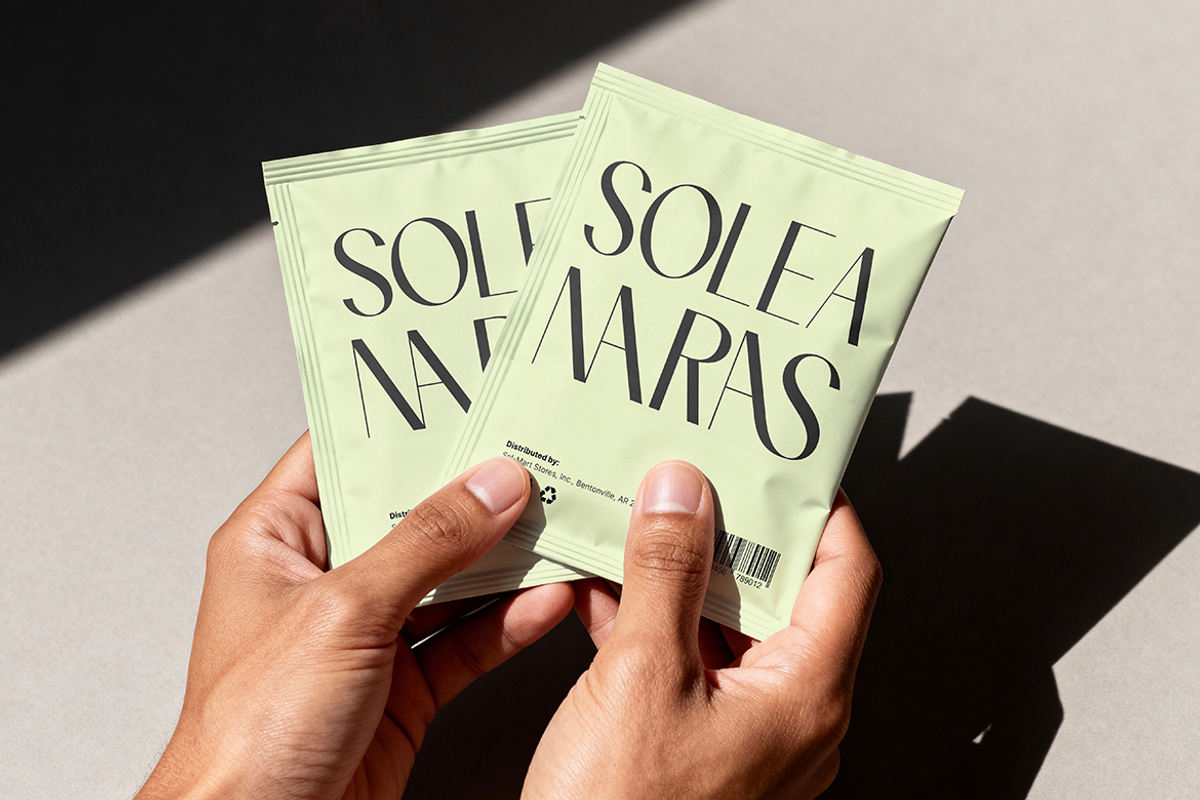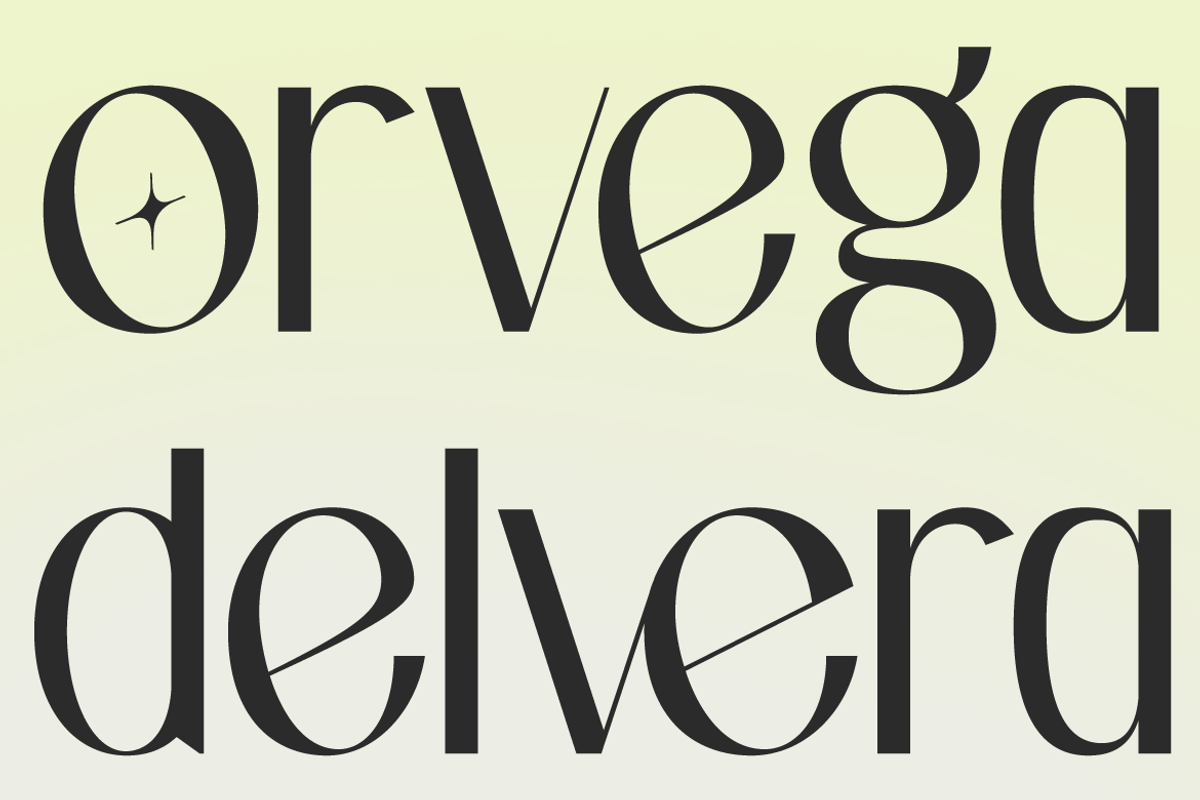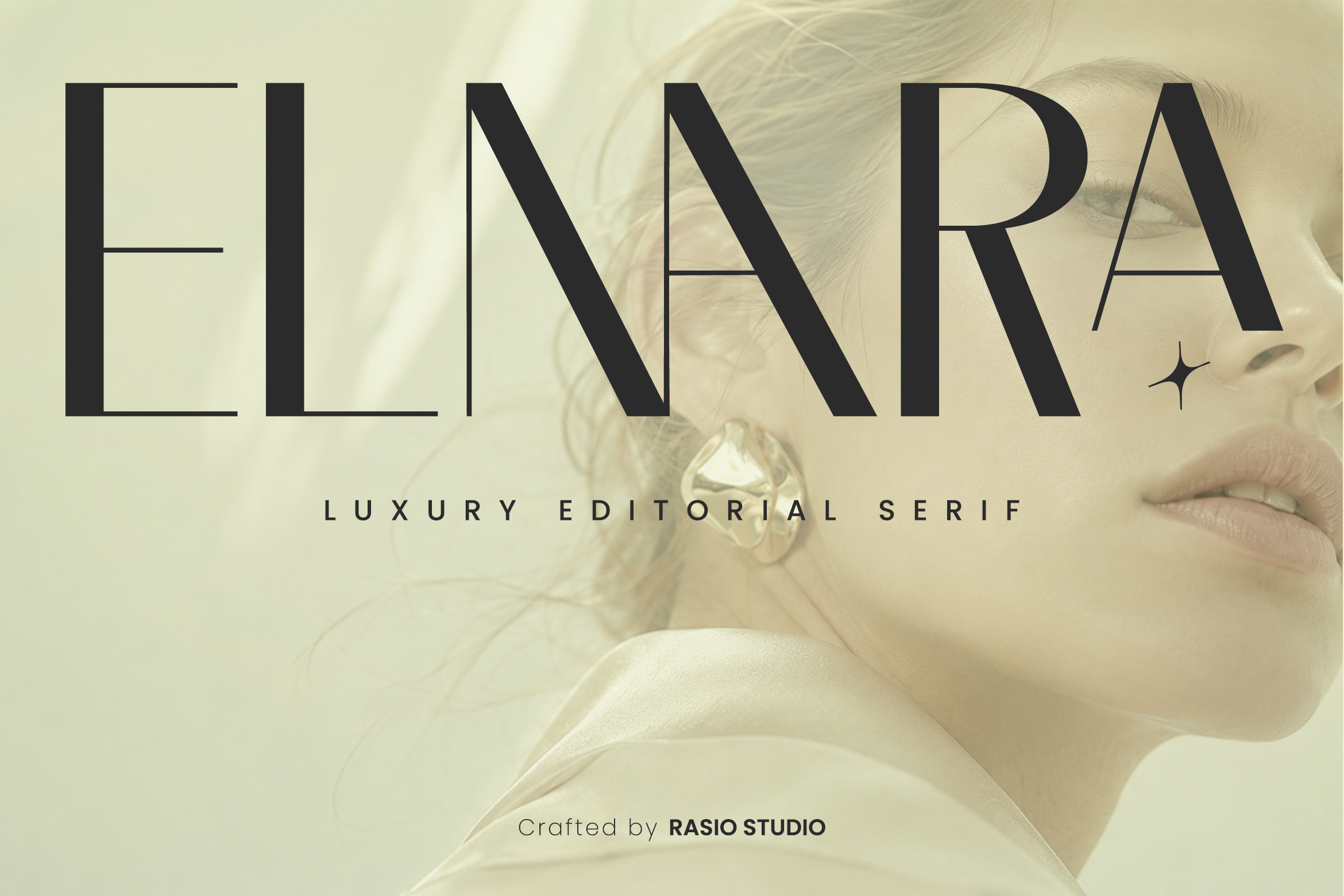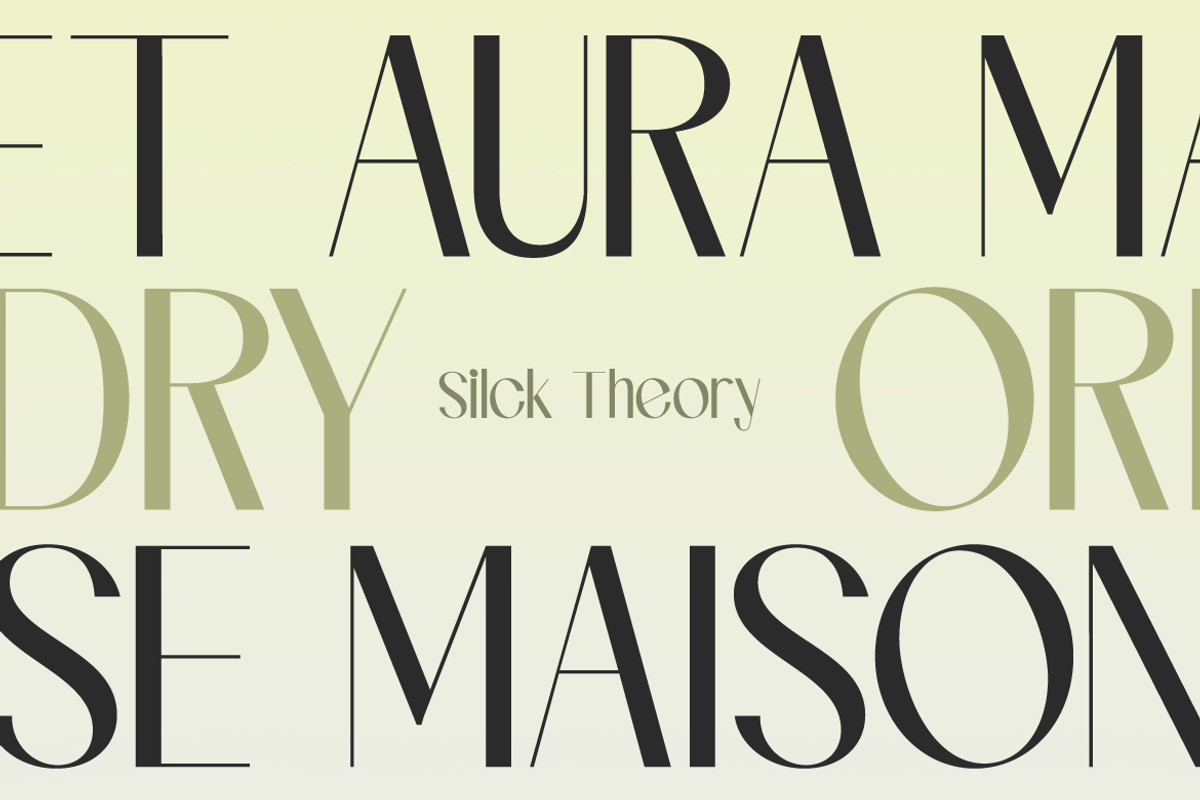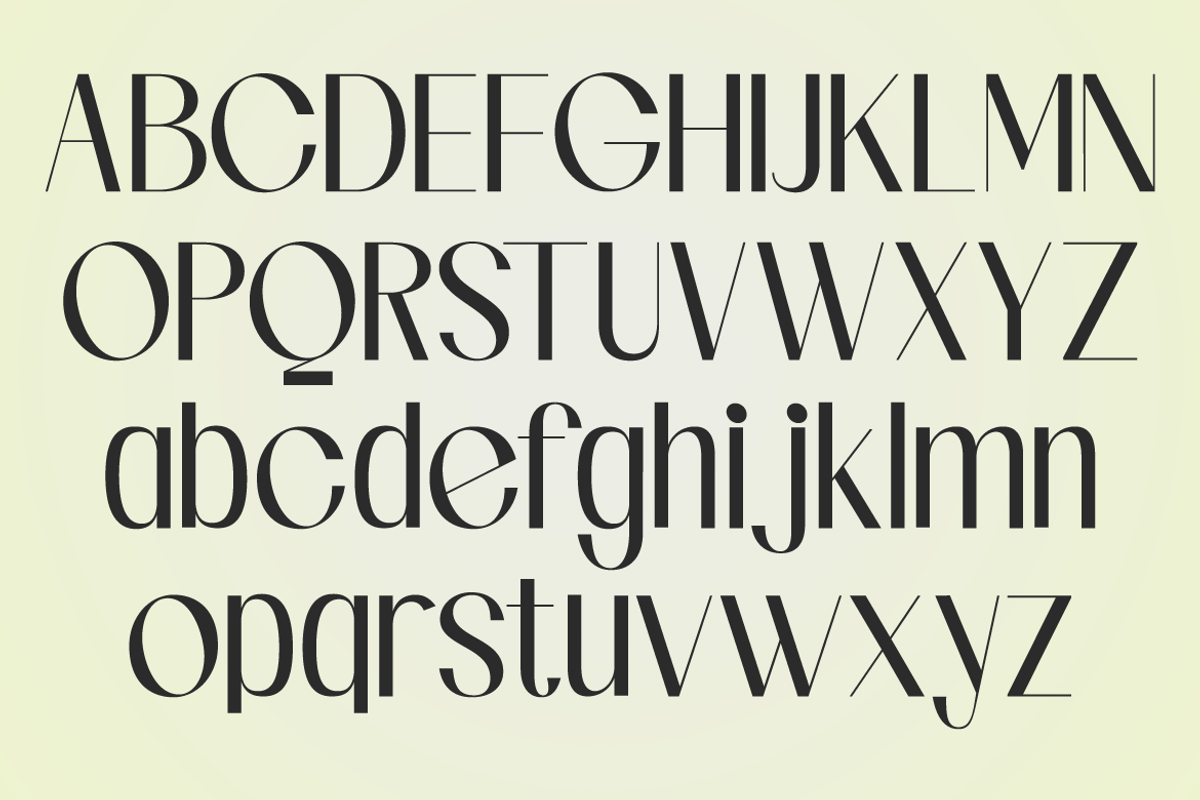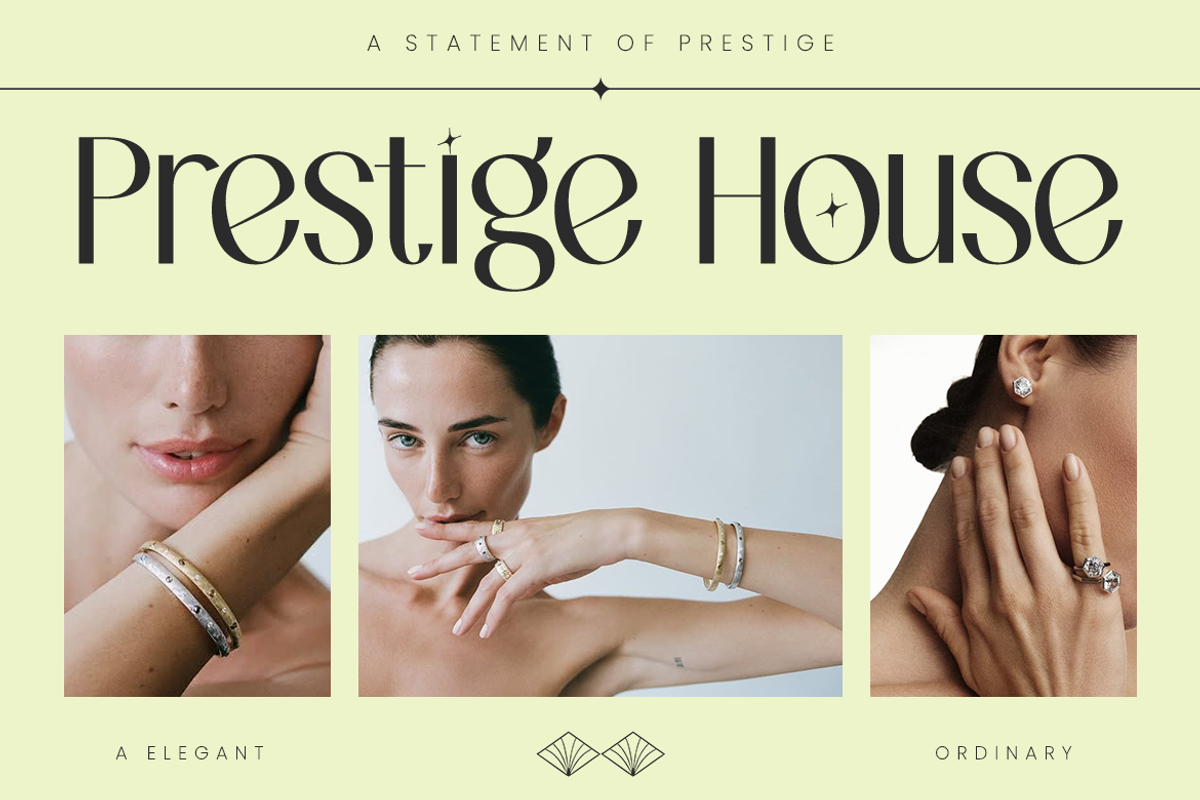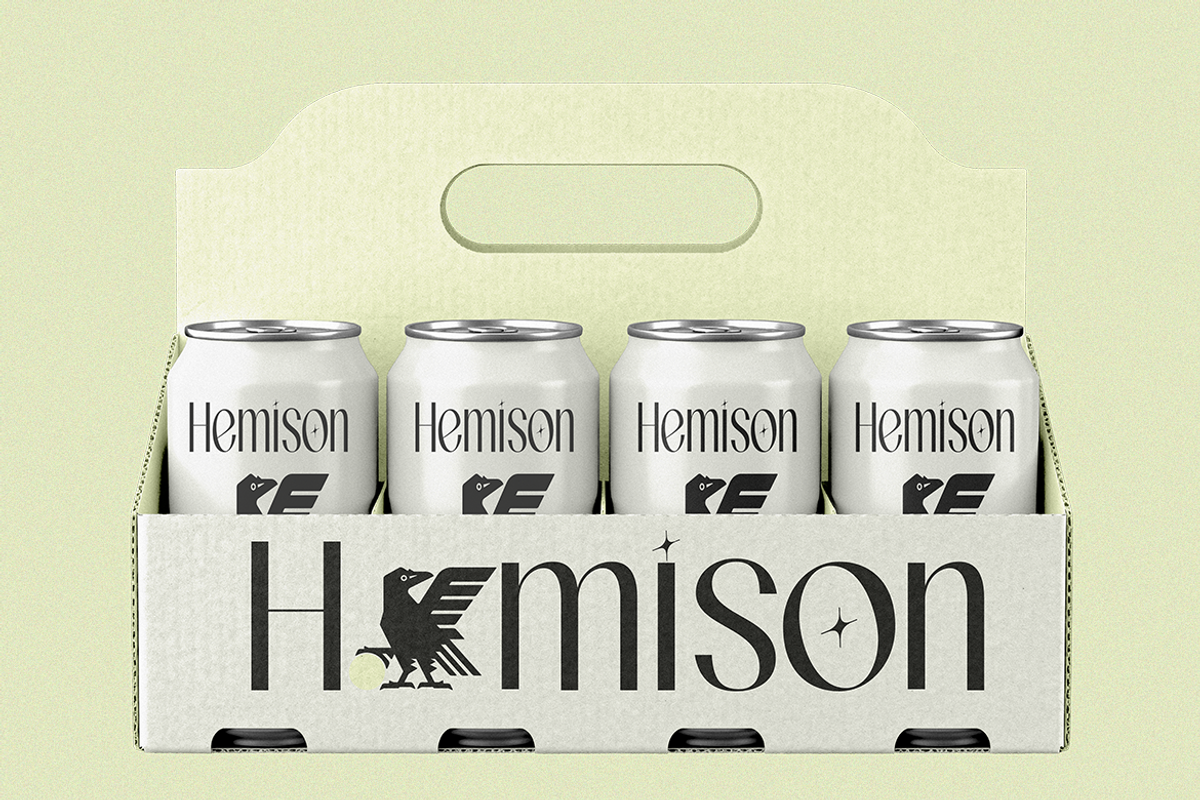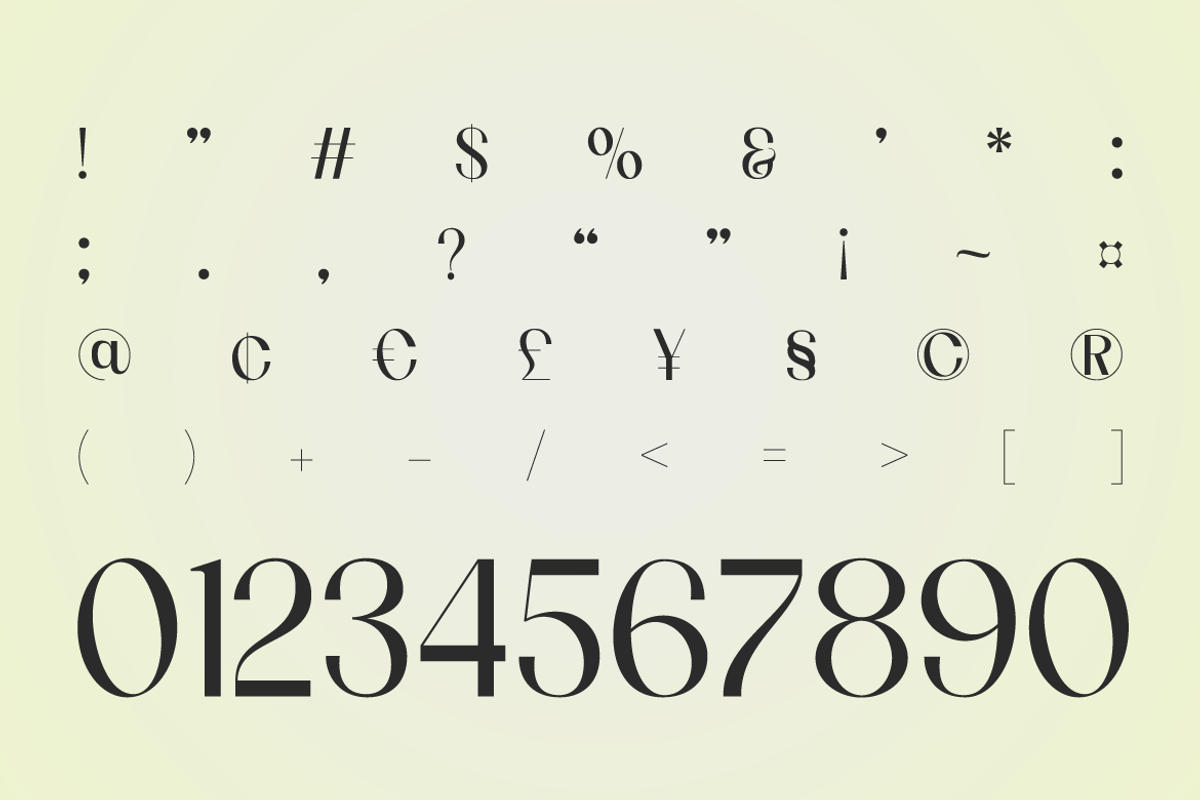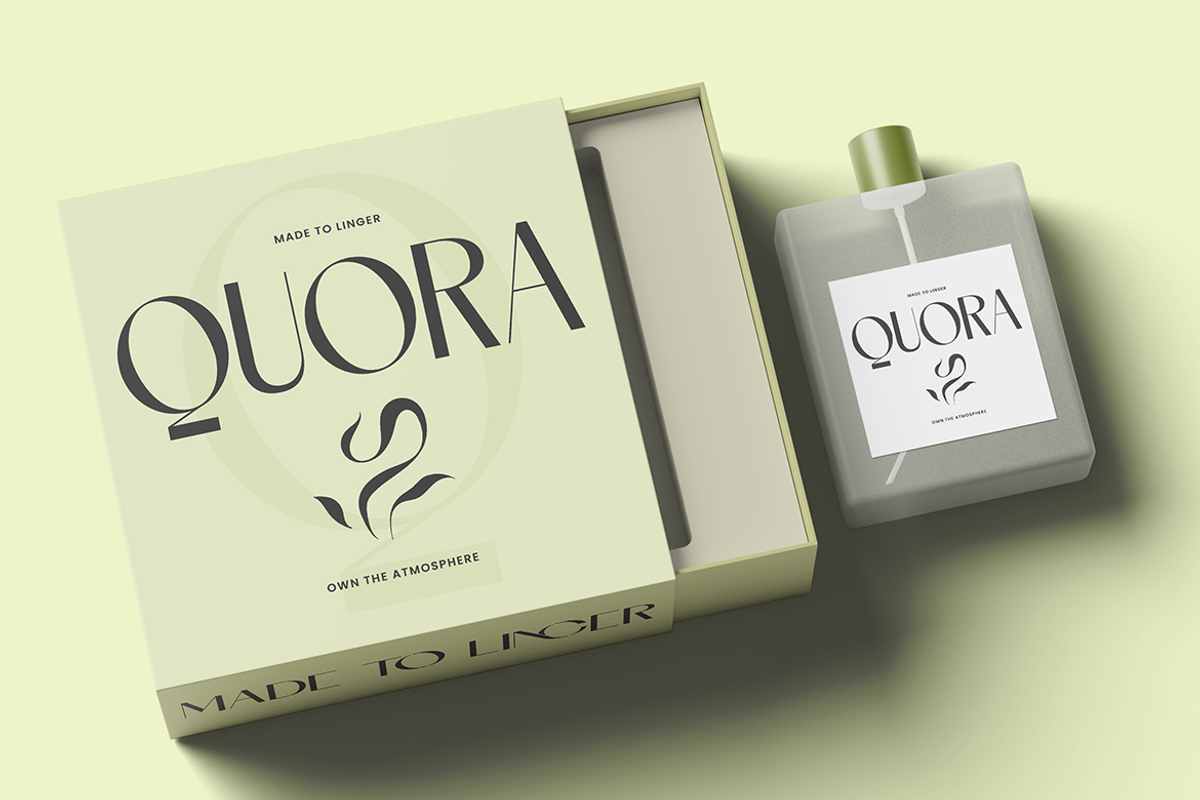
Elnara Luxury Editorial Serif Font
Elnara is a luxury editorial serif typeface designed to convey refinement, confidence, and contemporary sophistication. Its high-contrast letterforms, elongated proportions, and carefully sculpted curves create a graceful visual rhythm that enhances headlines, logos, and premium typography. Inspired by modern fashion publications and luxury branding, the typeface balances classic serif elegance with a clean contemporary character, making every composition feel polished and distinctive.
Whether used for magazine covers, boutique identities, cosmetic packaging, jewelry collections, perfume labels, wedding stationery, book covers, restaurant branding, or lifestyle campaigns, Elnara adapts beautifully across a wide variety of creative projects. The refined details allow it to stand confidently as a striking display font while remaining clear and balanced for short editorial text, product names, and sophisticated branding systems that demand a memorable visual presence.Elnara is fully prepared for professional workflows across print, web, social media, packaging, and digital publishing, making it an excellent choice for creators seeking an elegant and versatile serif typeface.
High-contrast editorial serif with refined, fashion-inspired proportions
Slim elegant stems balanced by graceful thick-to-thin stroke transitions
Delicate wedge serifs that create a luxurious and sophisticated appearance
Elongated character shapes with generous spacing for premium visual impact
Subtle decorative details that enhance elegance without sacrificing readability
Fashion branding, luxury logos, and boutique visual identities
Editorial publications, magazine covers, and coffee table books
Beauty, skincare, perfume, and jewelry packaging designs
Wedding stationery, invitations, and elegant event collateral
Premium websites, social media campaigns, and sophisticated marketing materials
Supports numerals, punctuation, and extensive symbol set